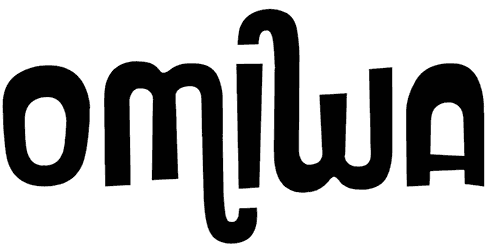
Omiwa Font
Omiwa is one type of doodle font that instantly turns any boring design into an interesting project. This font, with a combination of upper and lowercase letters, is the top way to attract the attention of young audiences with fresh tastes and can create a more personal feeling in your layout.
So if you are making a poster, children’s computer game, toy packaging, or anything else related to kids and don’t need numbers and punctuation, Omiwa is a premier option.